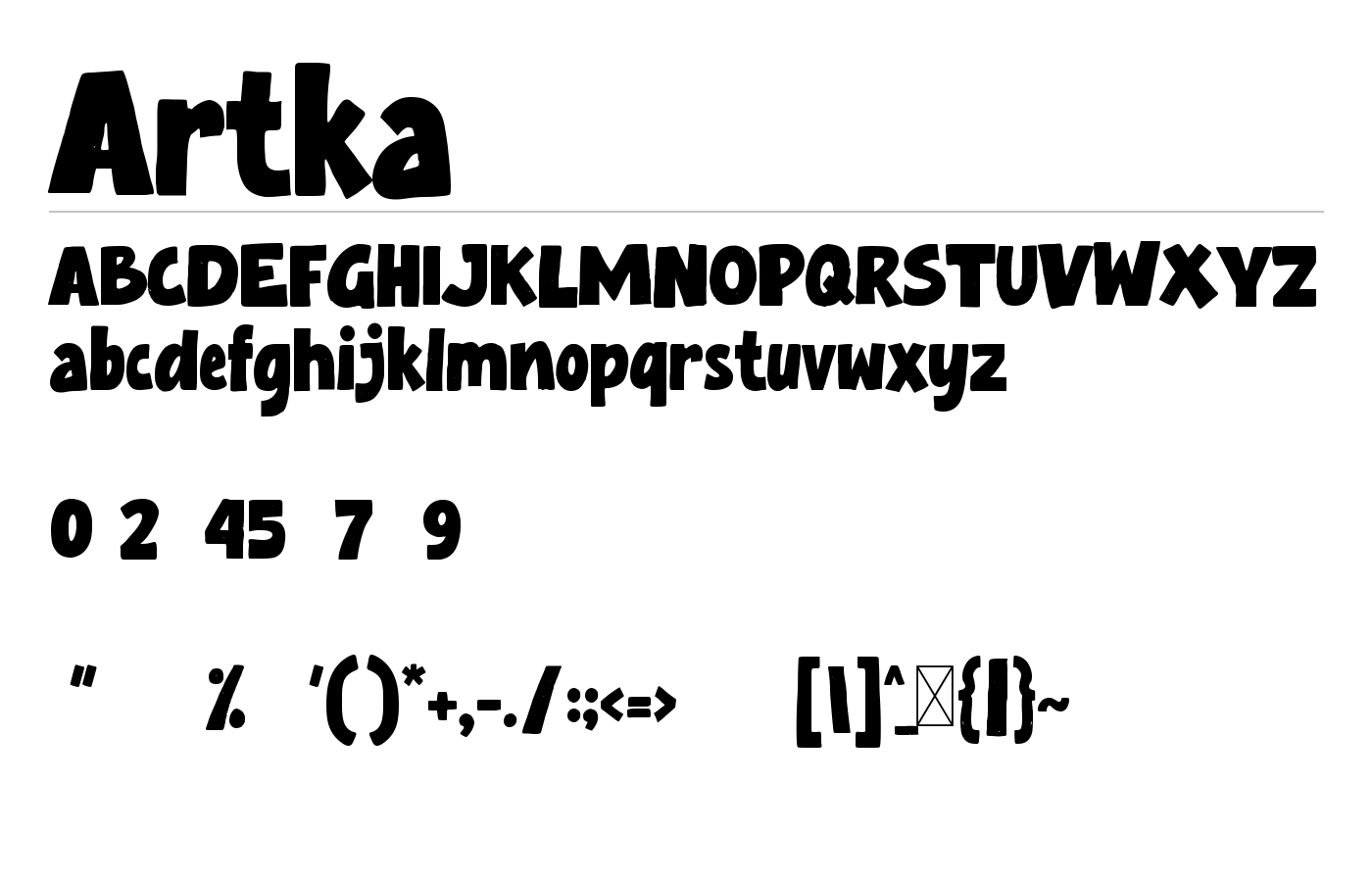
Artka is a bold, playful sans serif font with a slightly condensed and irregular shape, giving it a hand-crafted, friendly appearance. Its strong, chunky strokes and quirky letterforms make it ideal for creative and casual designs, perfect for logos, posters, and branding that want to convey a fun and approachable vibe. This font stands out with its unique personality while maintaining clear readability in both uppercase and lowercase.
| Font family | Artka Font |
| Designer | Anang F & Malik Wsn | Gassstype© Studio 2022 |